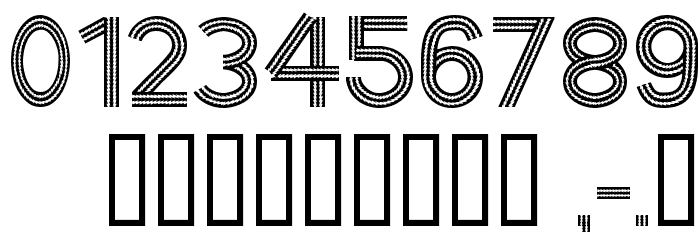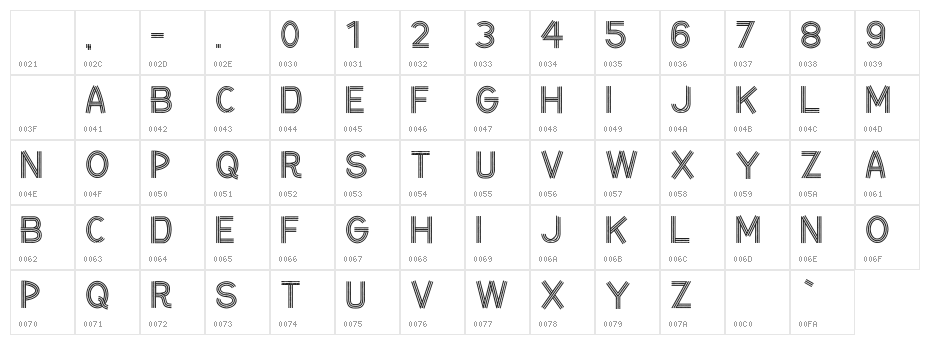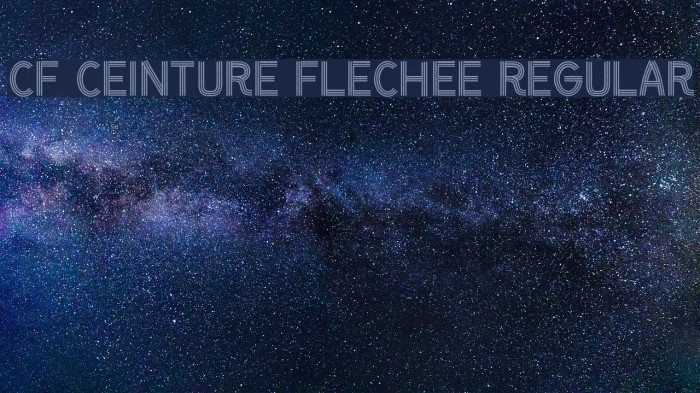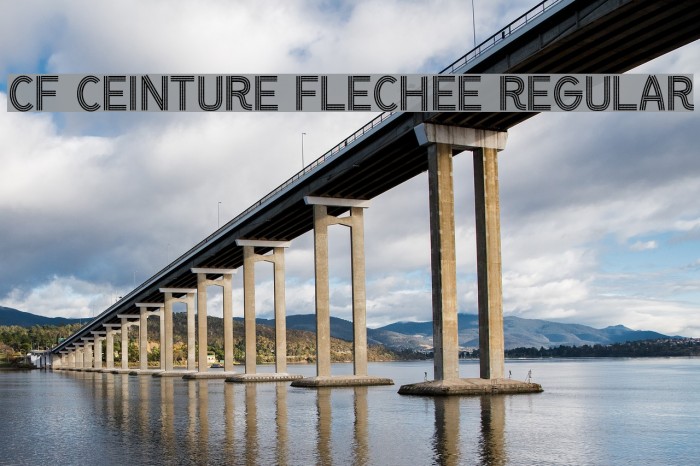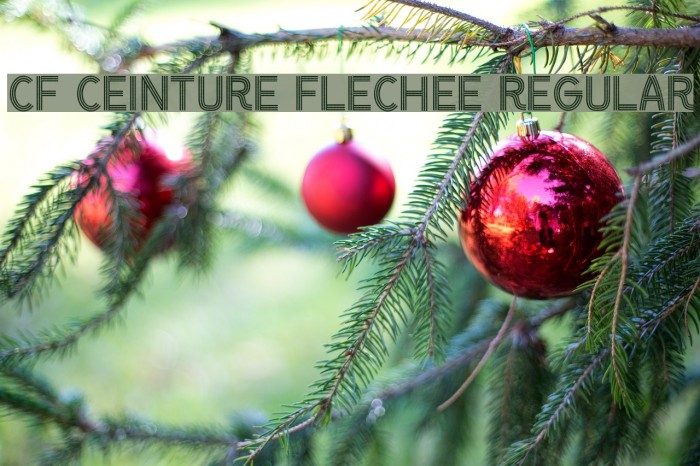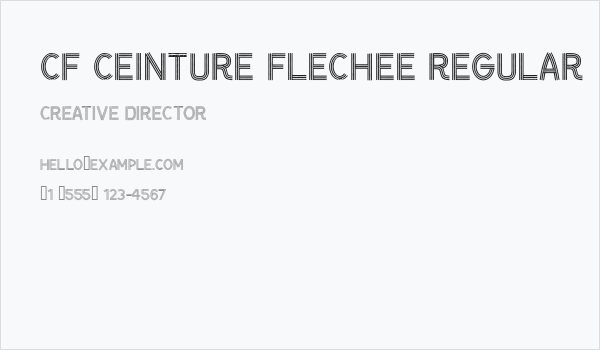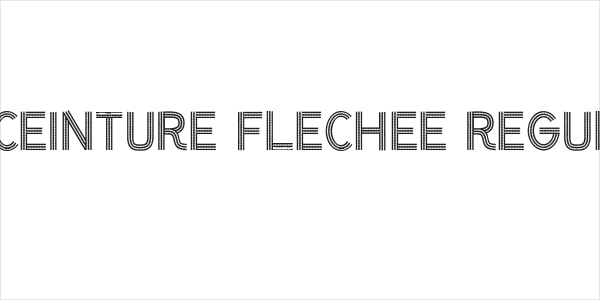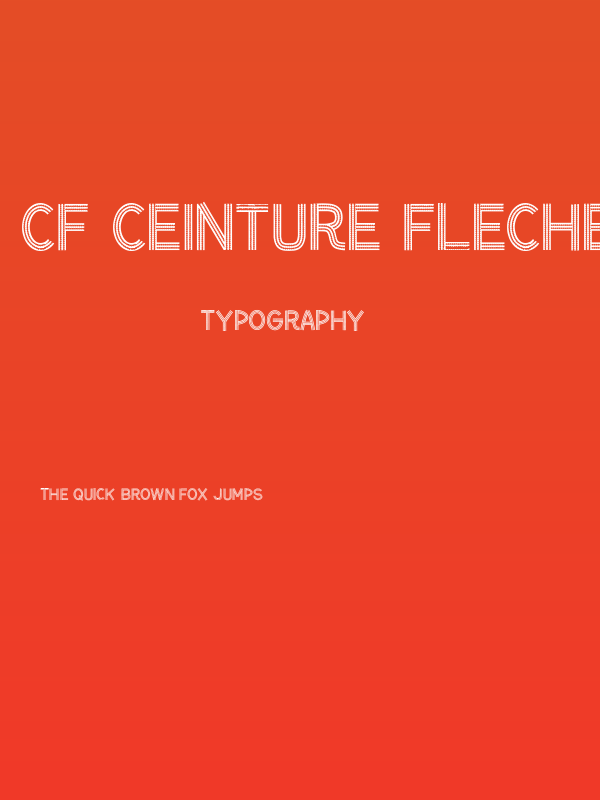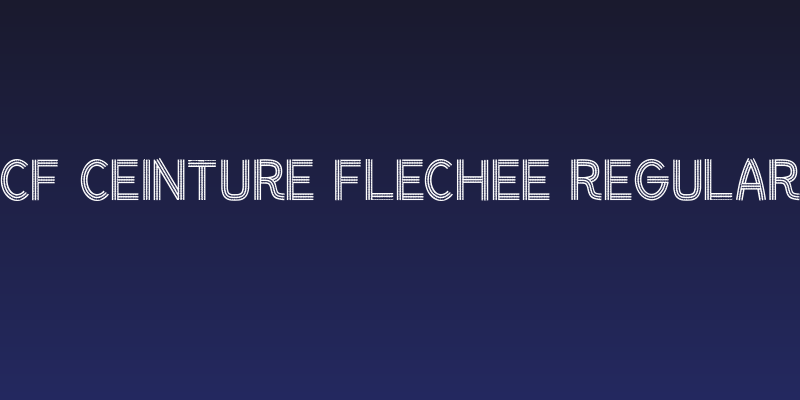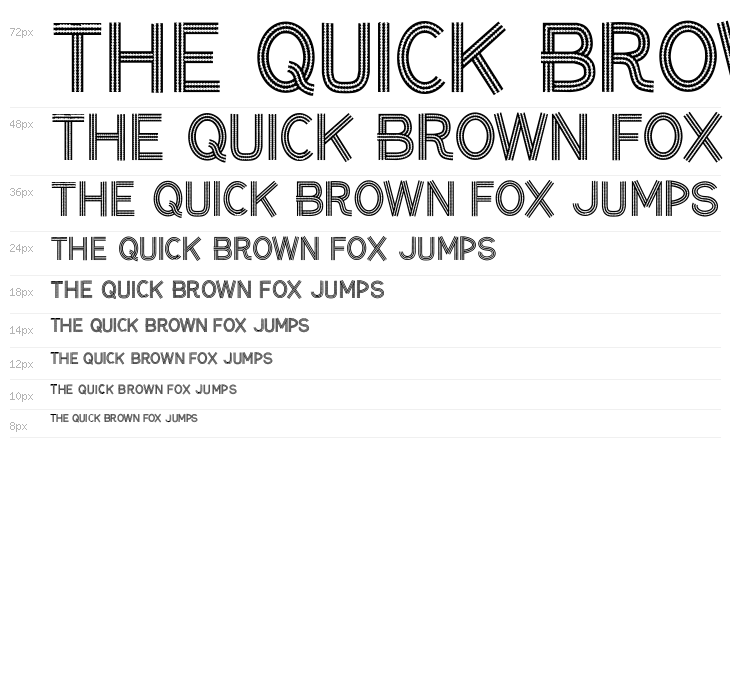
CF Ceinture Flechee Regular Font
CF Ceinture Flechee Regular Description
This font features a unique, decorative style characterized by its intricate, woven pattern within each character. The design is reminiscent of traditional weaving techniques, giving it a textured and layered appearance. Each letter and number is composed of multiple parallel lines that create a sense of depth and complexity. The font maintains a consistent geometric structure, ensuring readability while offering a visually striking aesthetic. Its distinct style makes it suitable for creative and artistic projects where a bold statement is desired.
| Proposed Projects | Ideal for branding, posters, and artistic designs where a unique and bold visual impact is needed. |